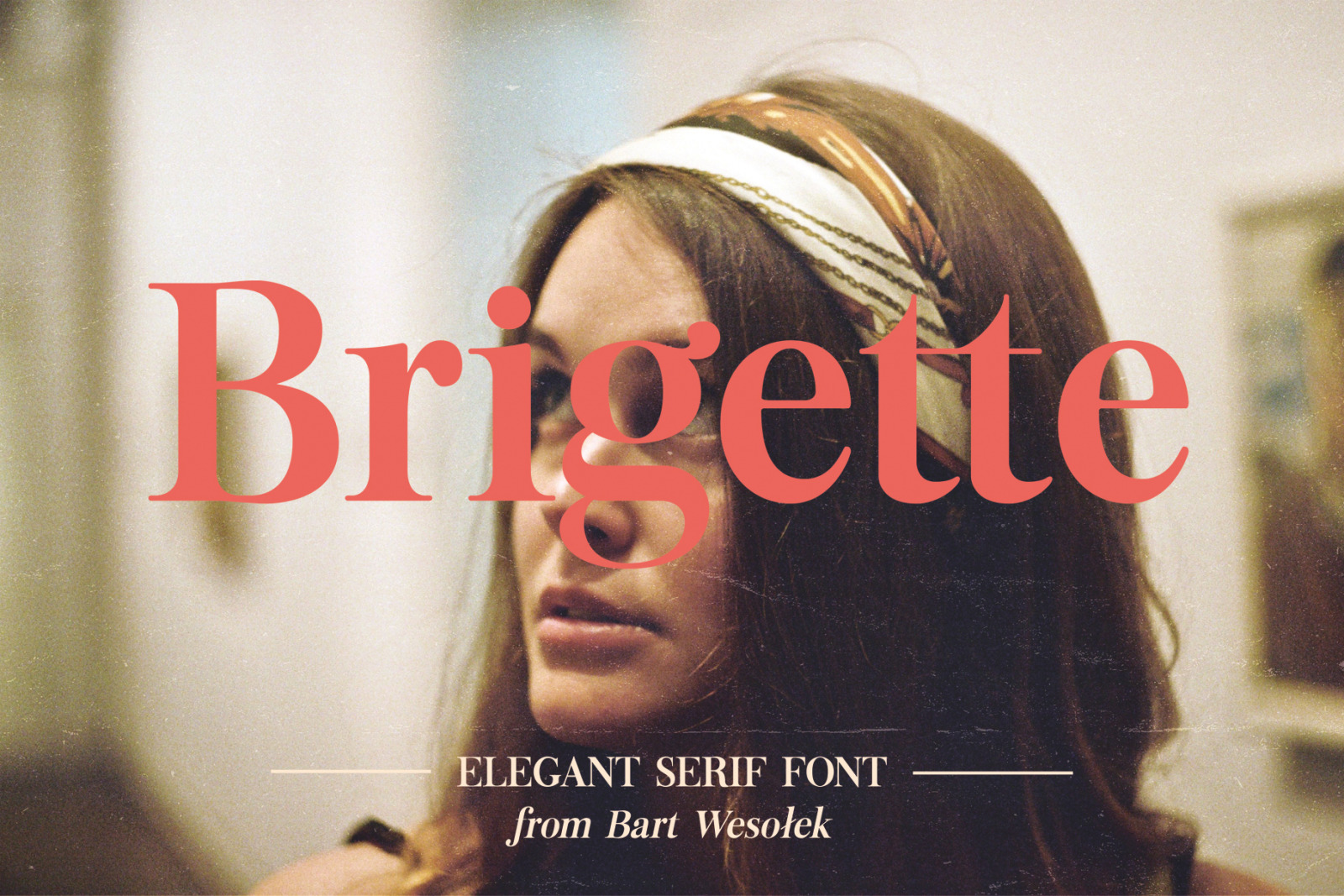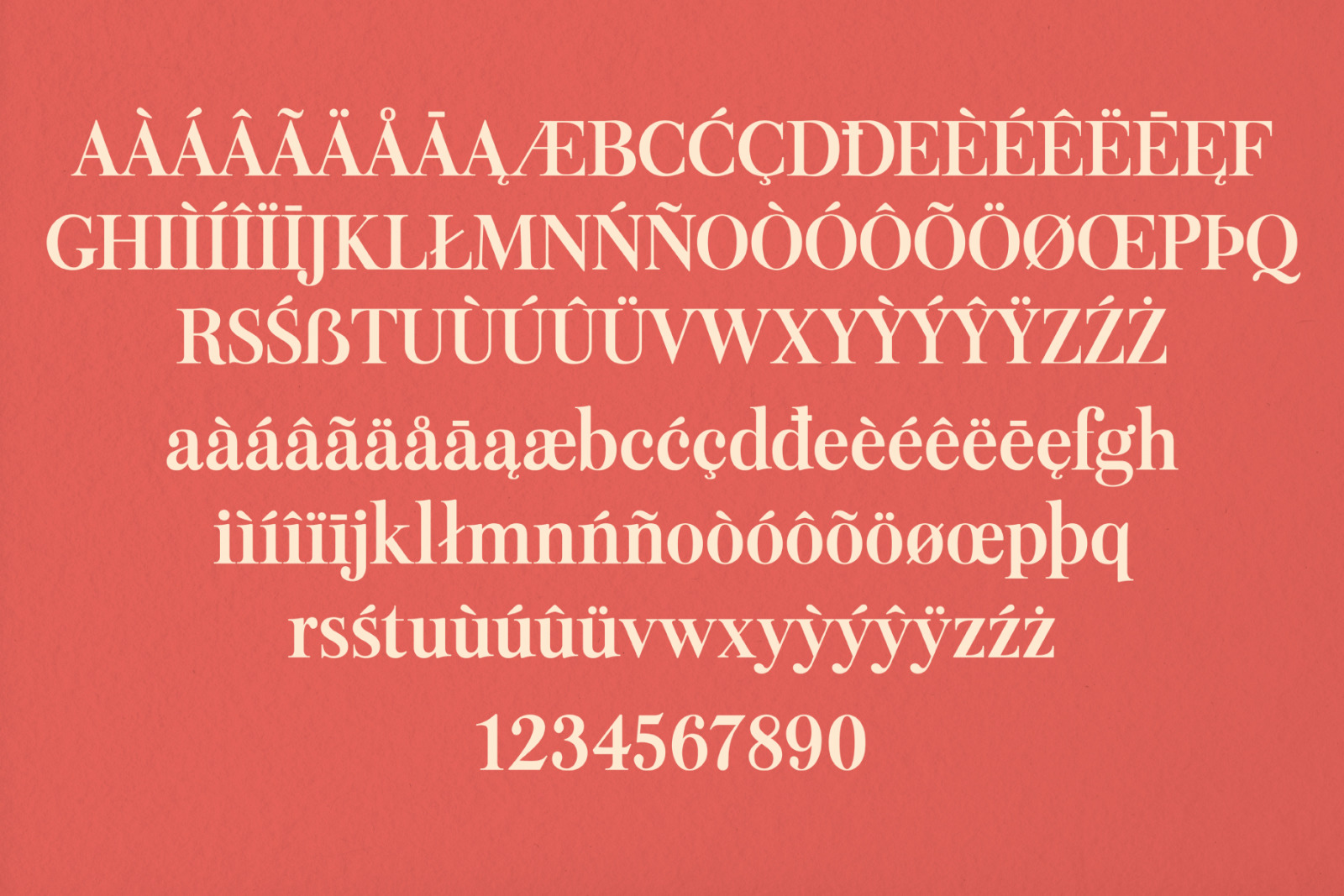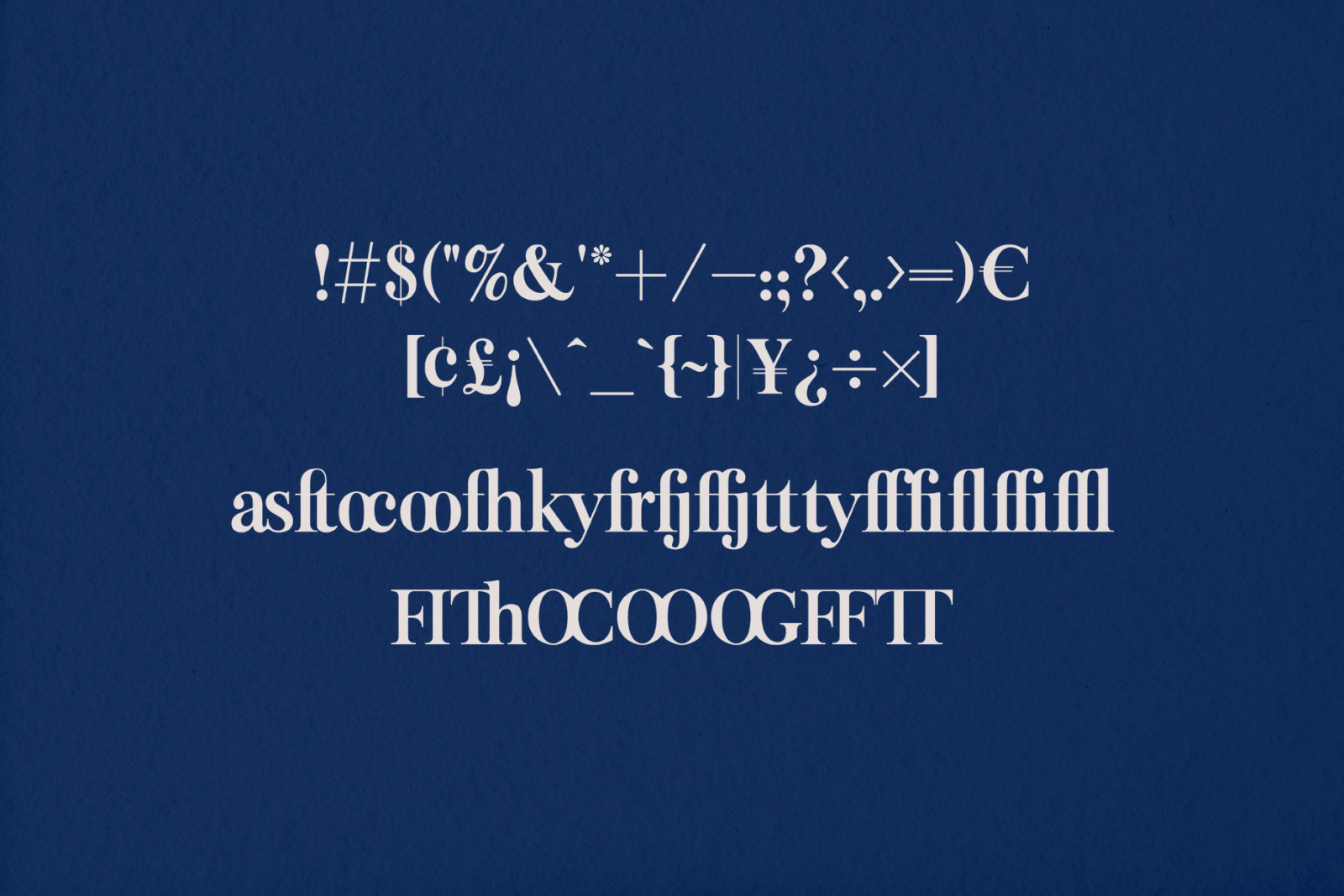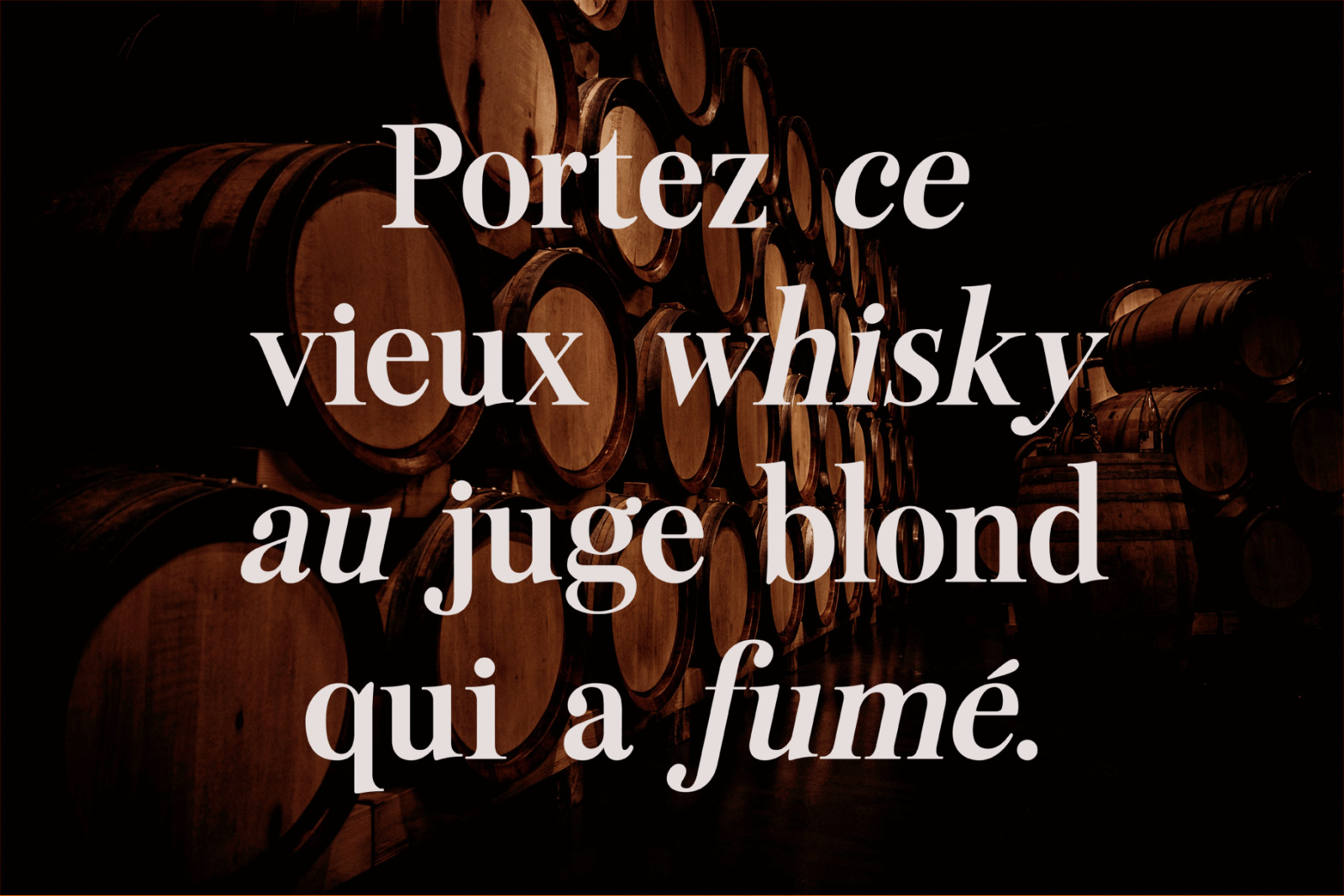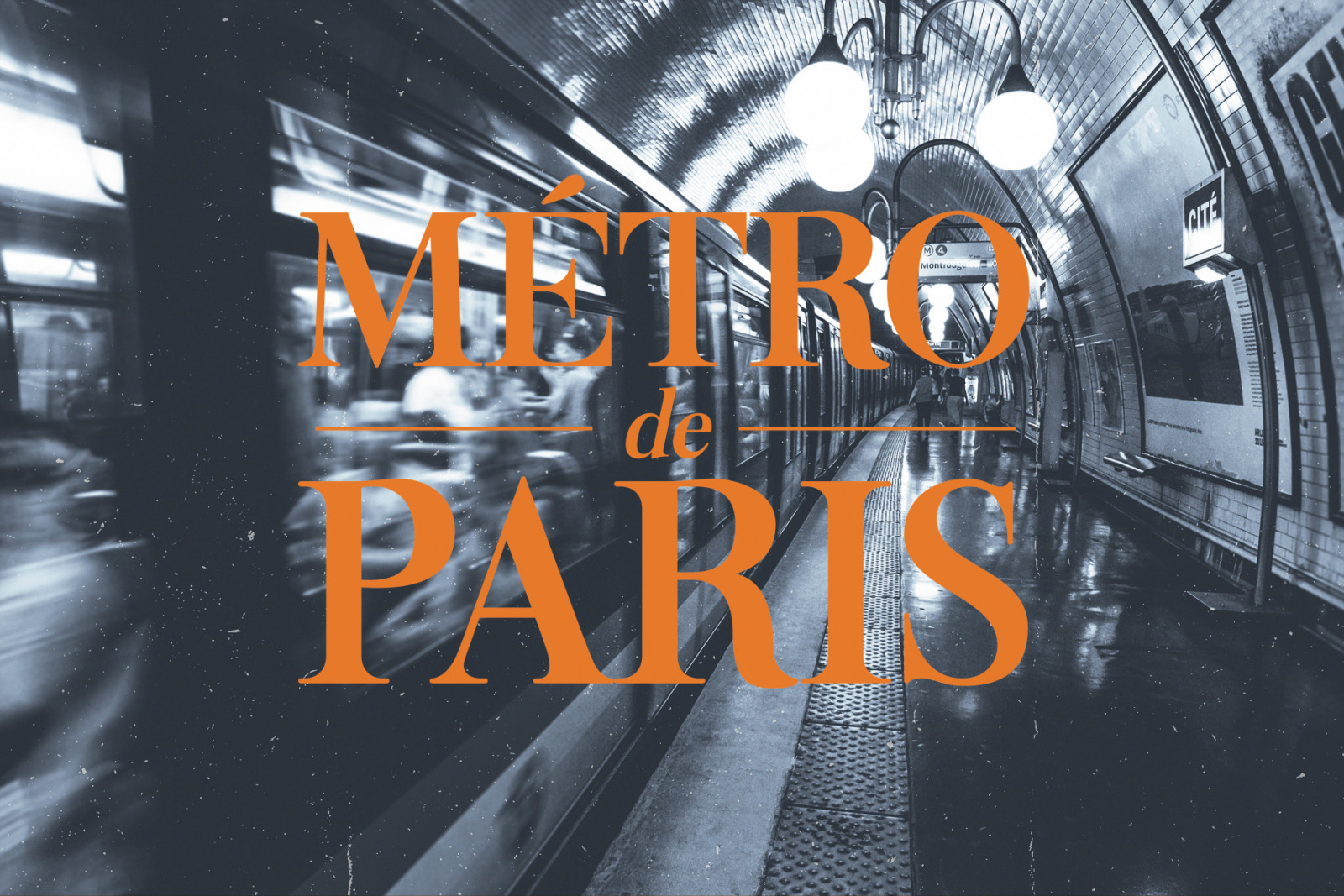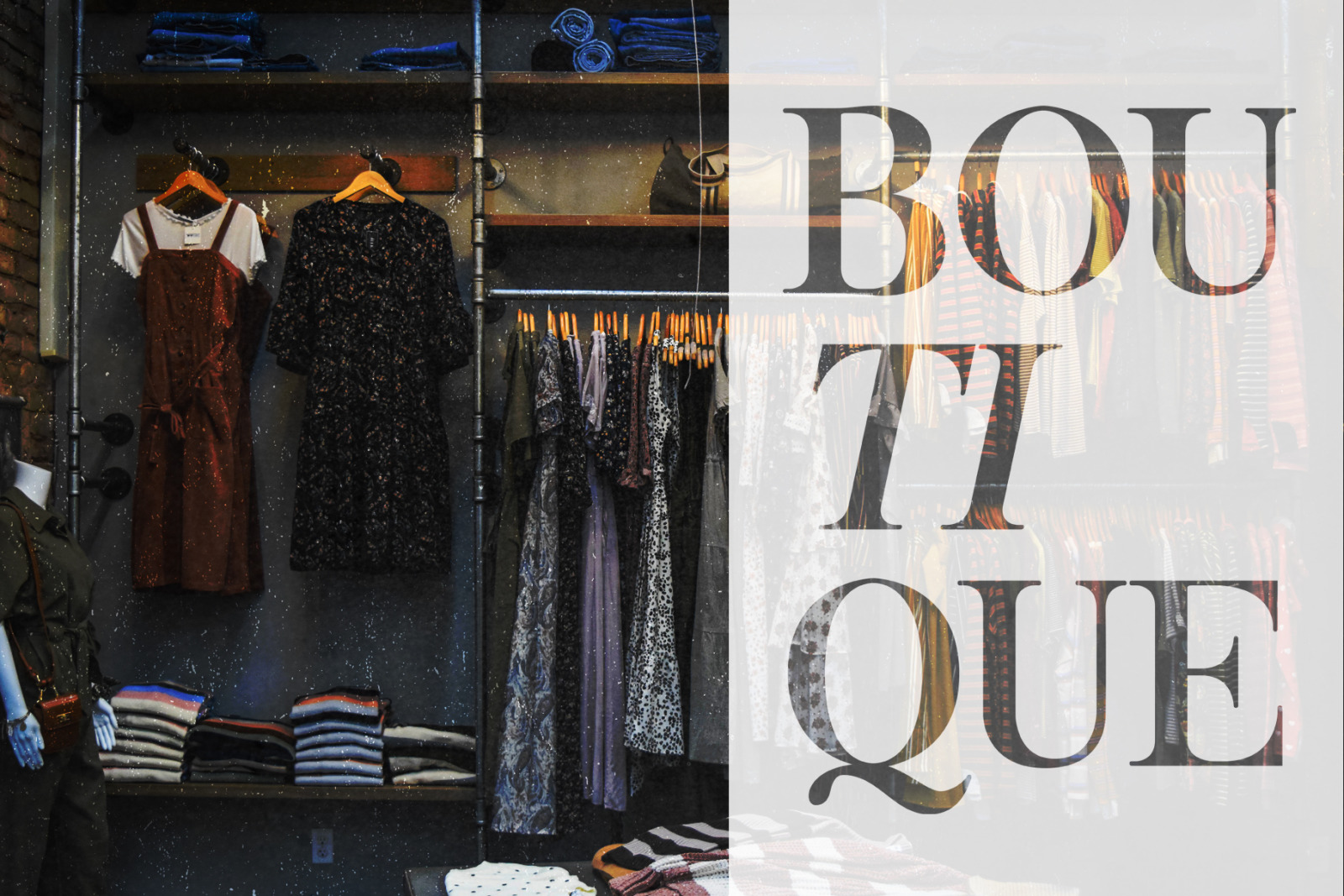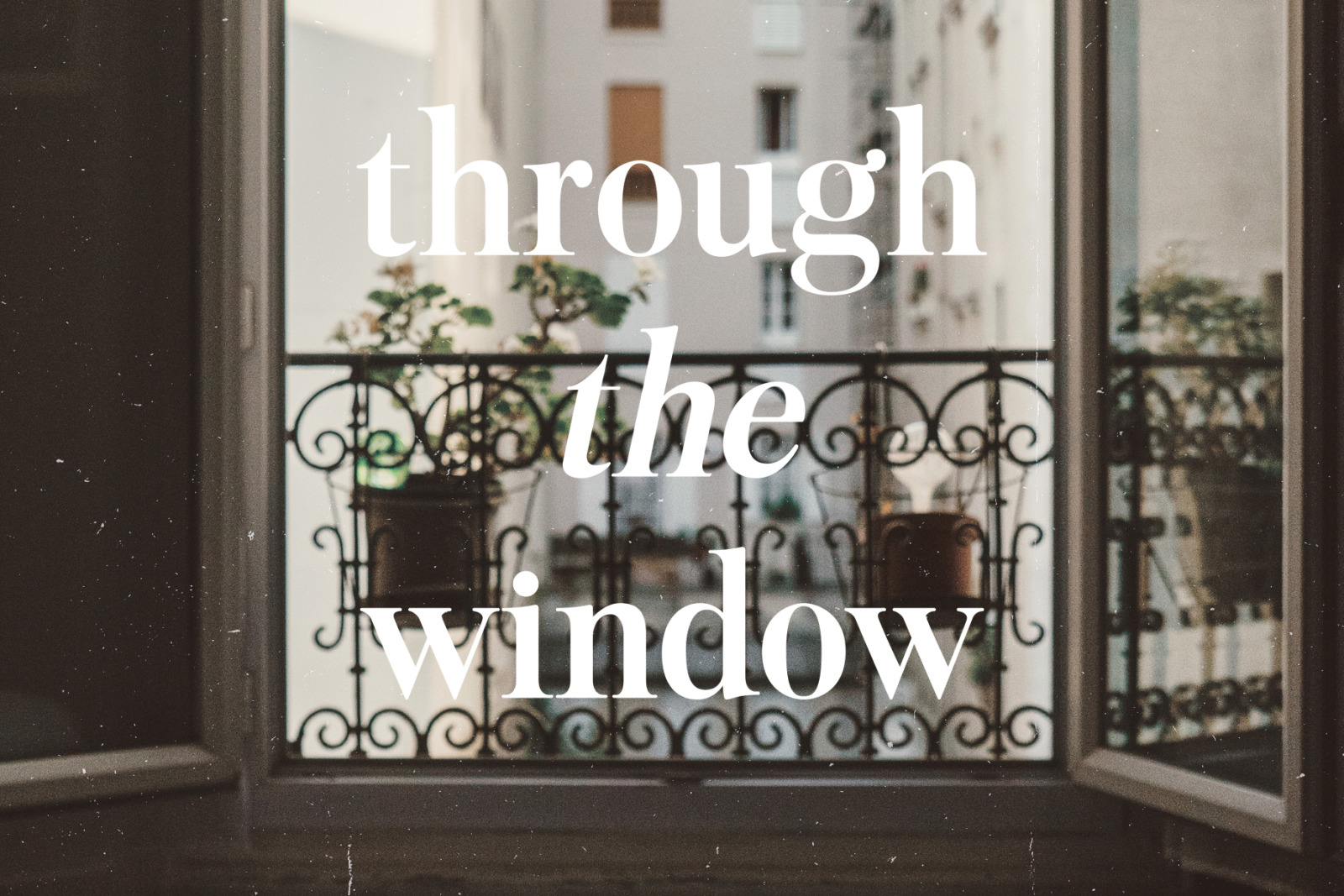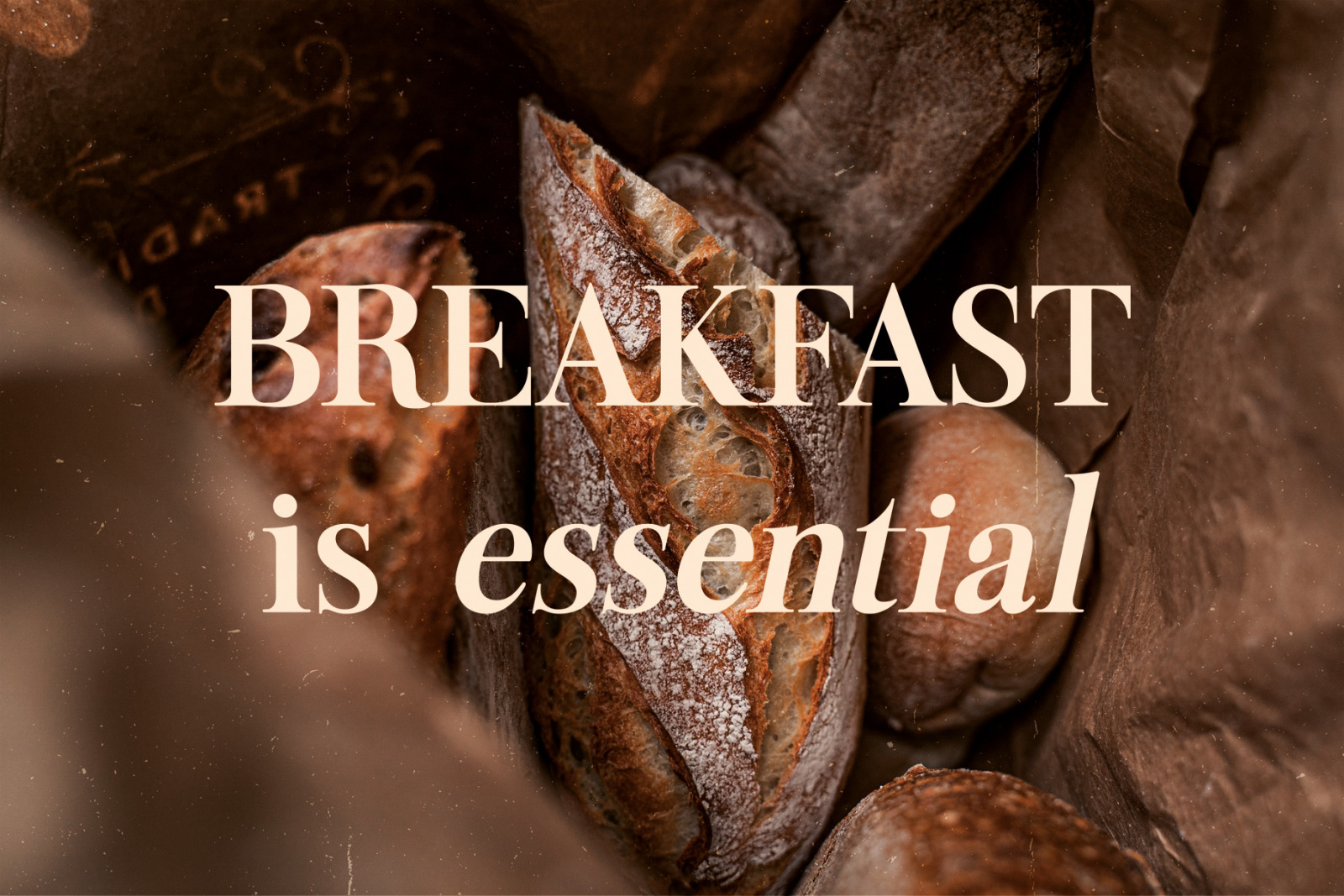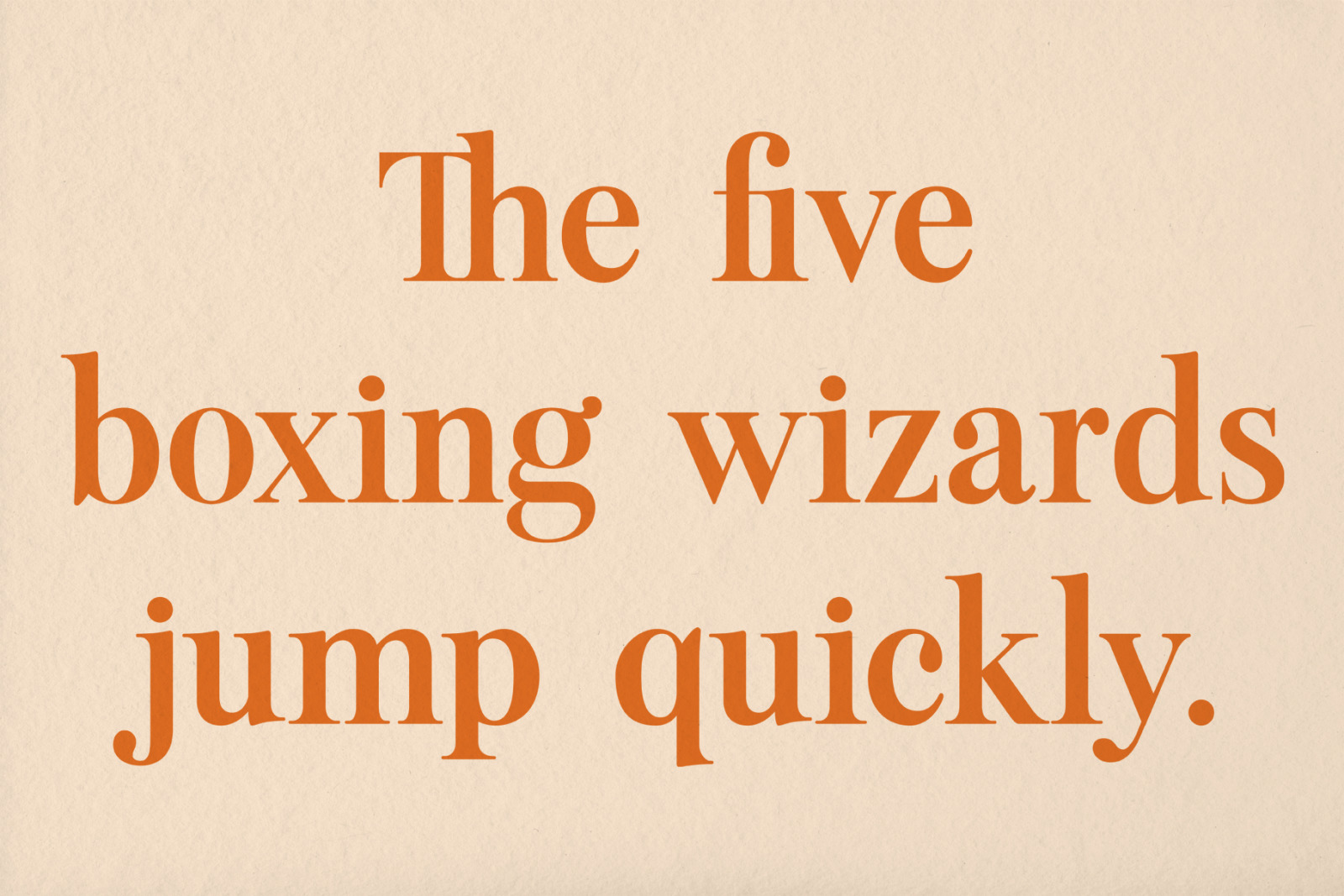
Brigette Font
Brigette is a classic elegant serif font. Brigette is inspired by retro serifs and mixed with modern serif styles. Brigette is great for text, headings, logos, brandings, socials and more. Enjoy!
Language support:
ÀÁÂÃÄÅĀĄÆ ÇĆ ÈÉÊËĘĒ ÌÍ Î Ï Ī Ð Ł ŃÑ ÒÓÔÕÖŒØ Ś ÙÚÛÜ ỲÝŶŸ Þ ß
àáâãäåāąæ çć èéêëęē ìí î ï ī ð ł ńñ òóôõöœø ś ùúûü ỳýŷÿ þ